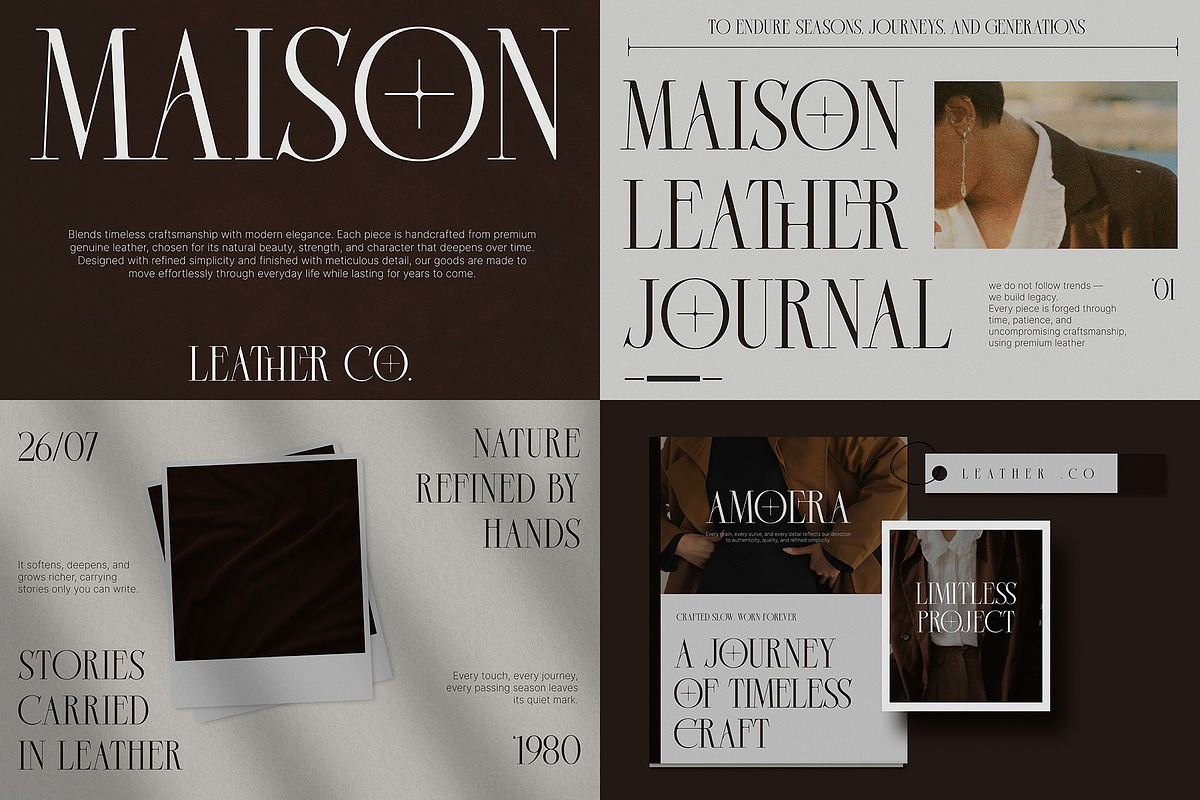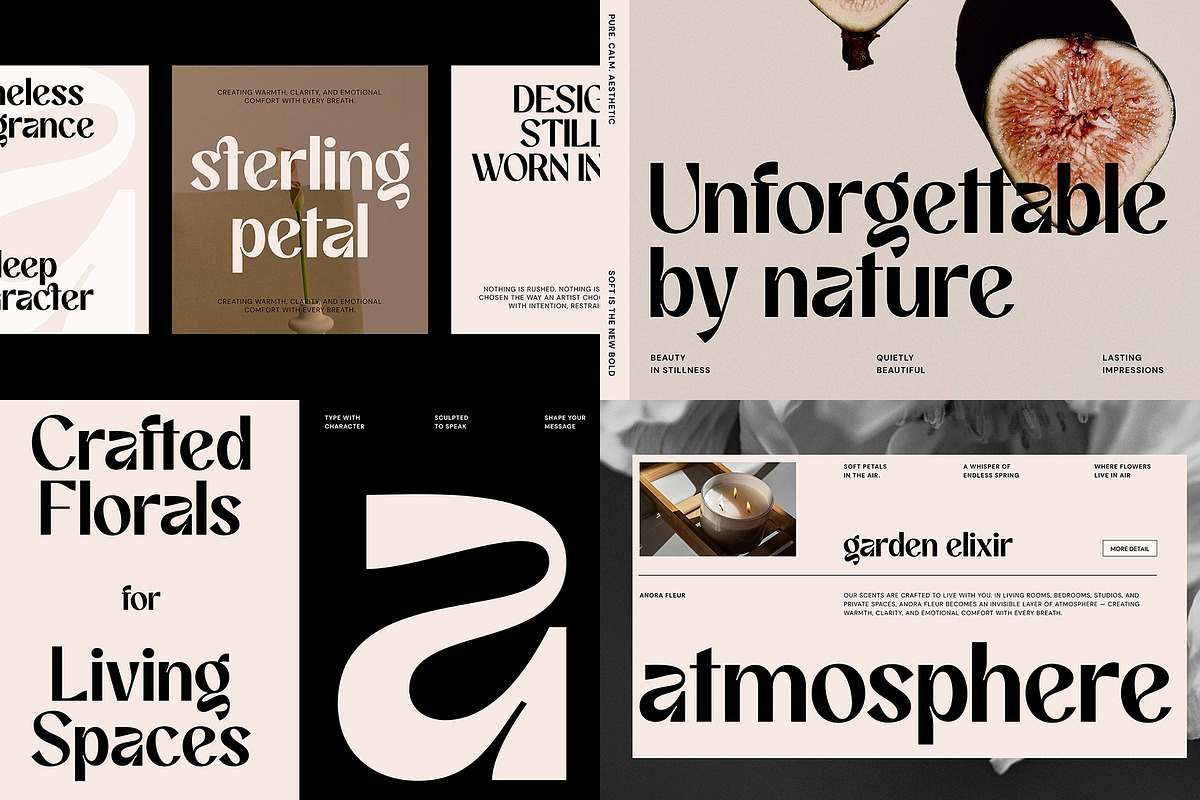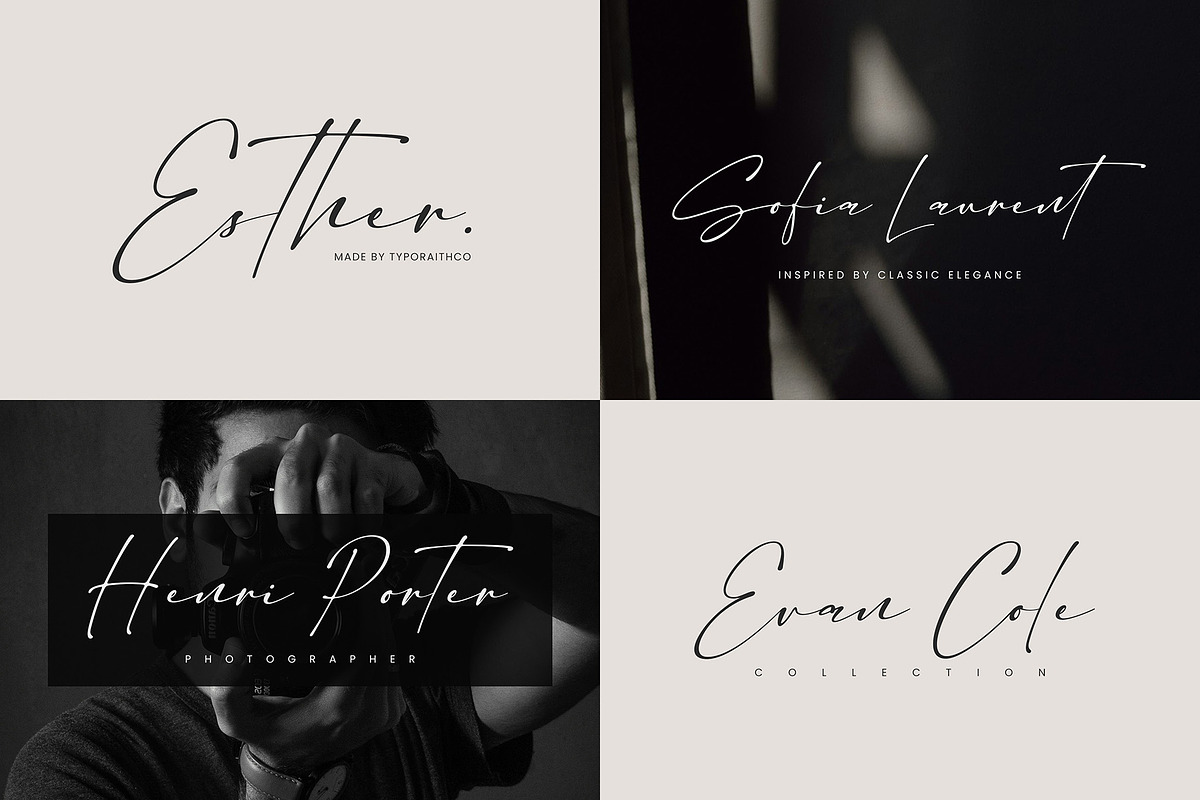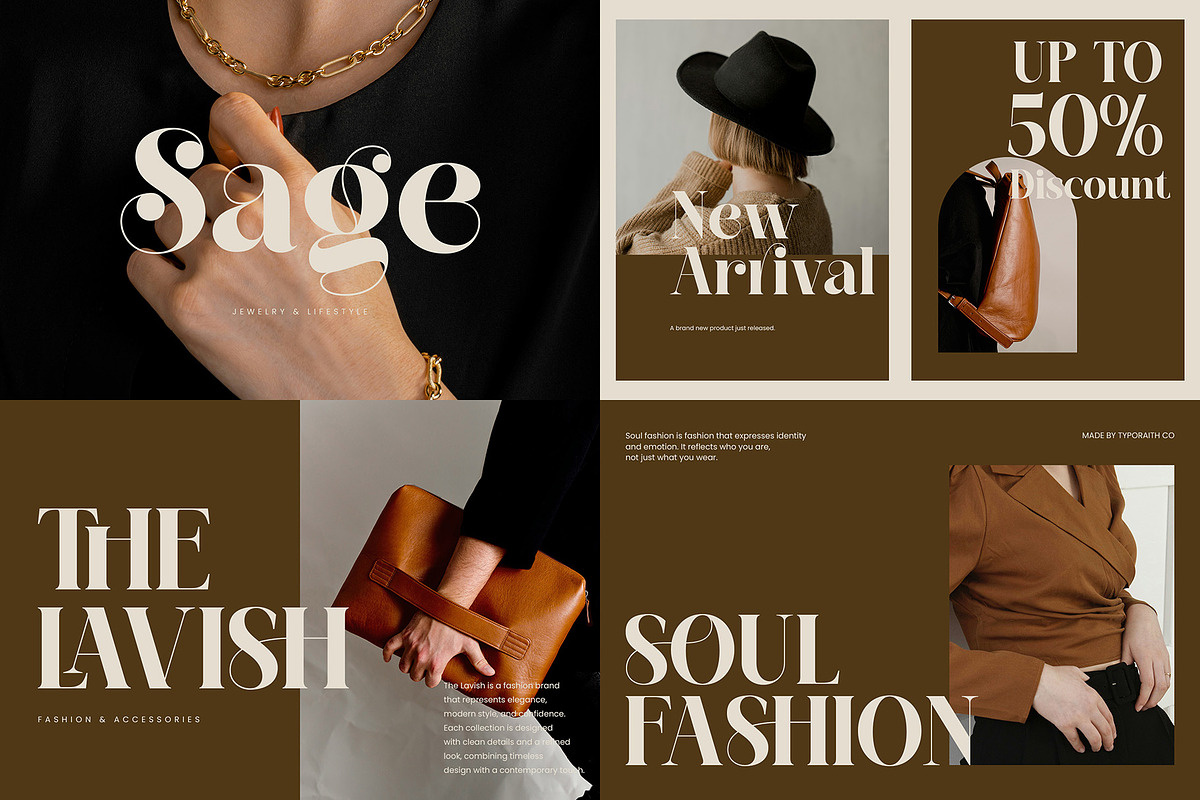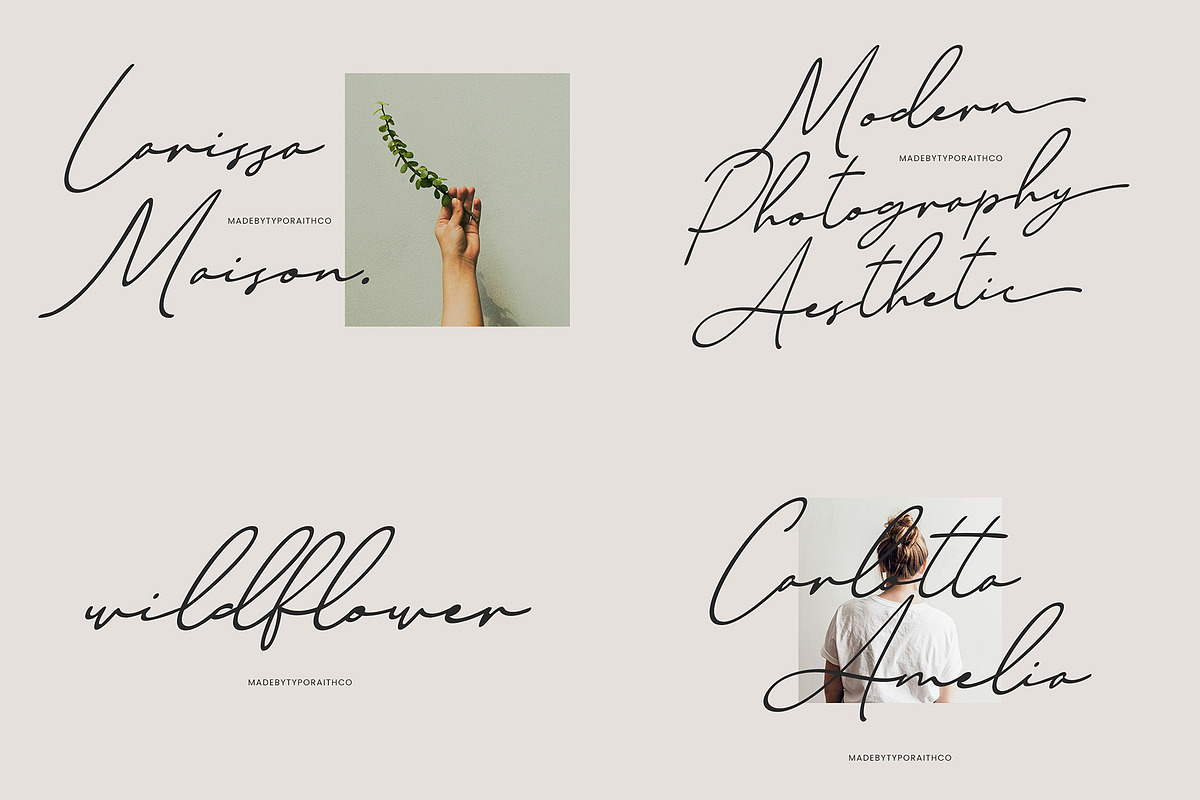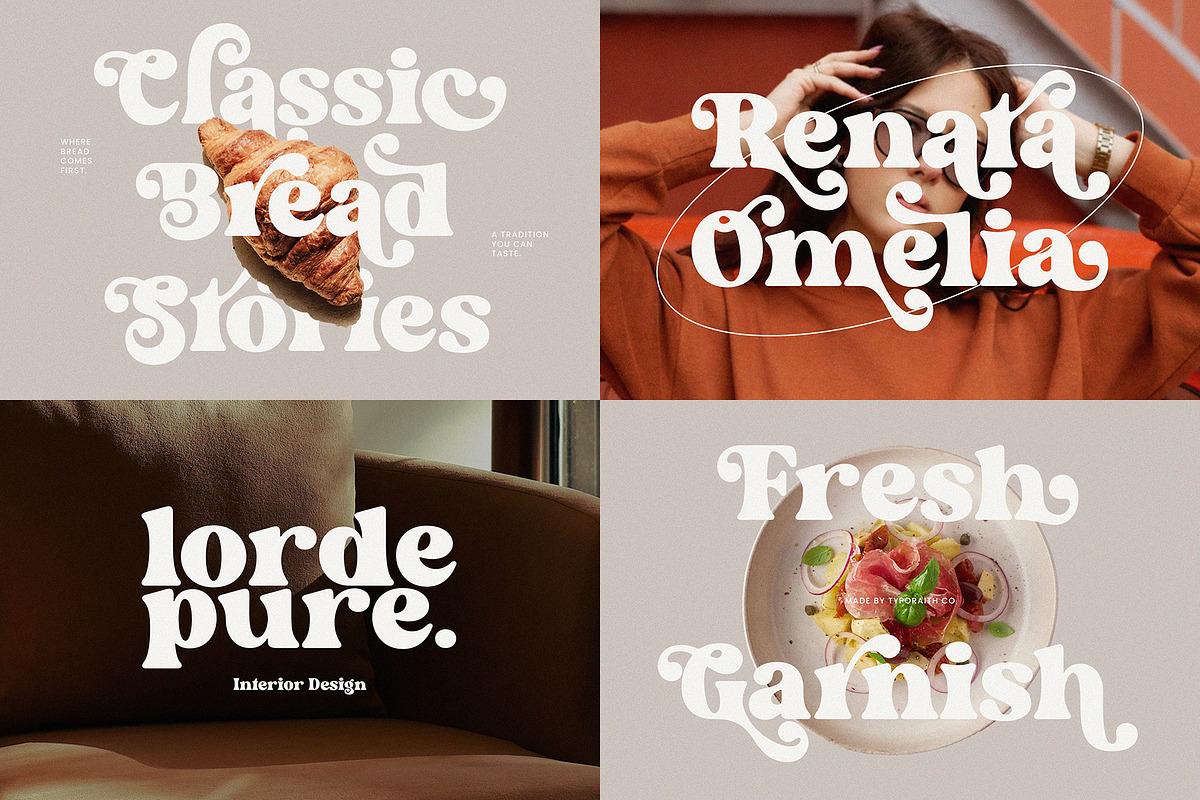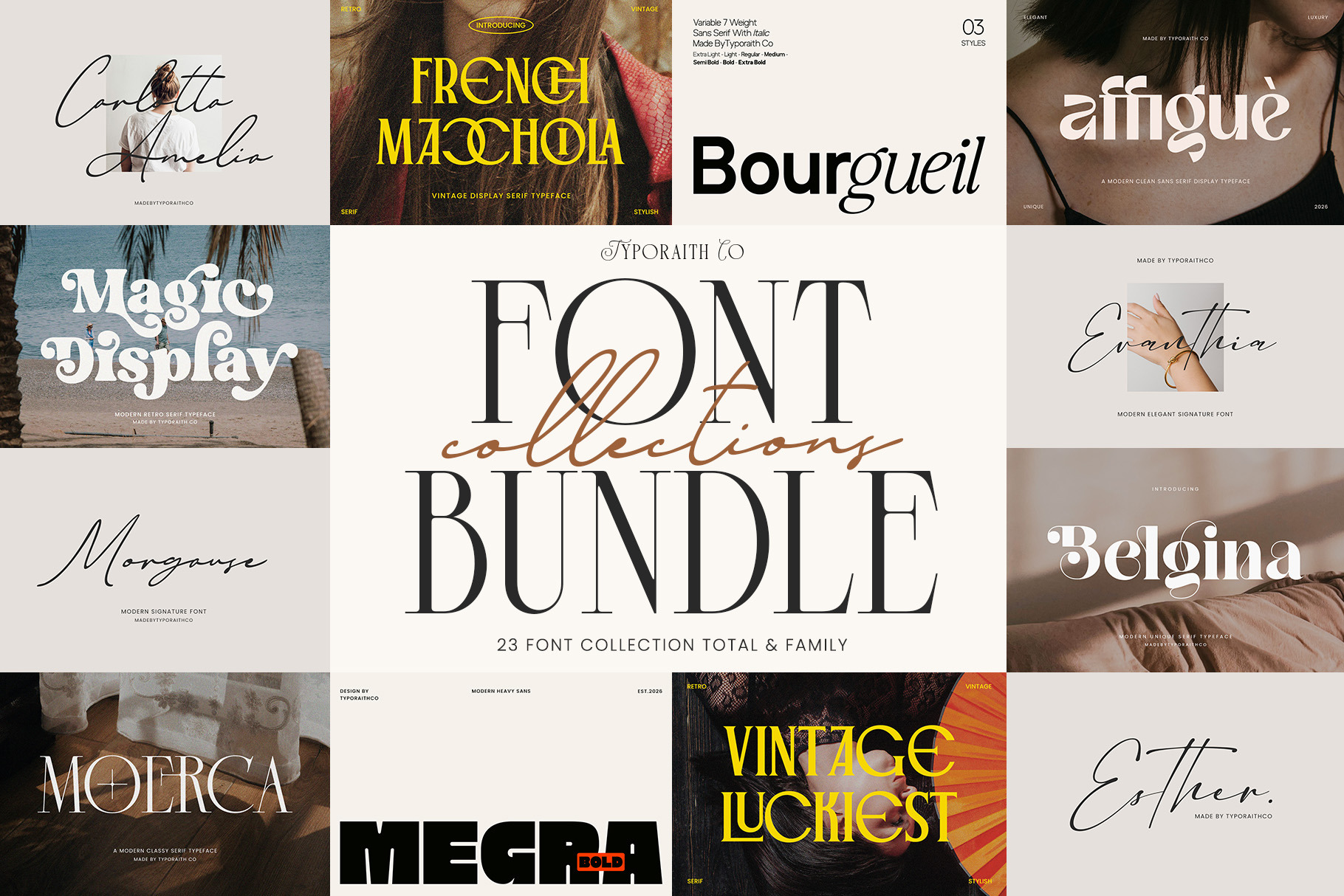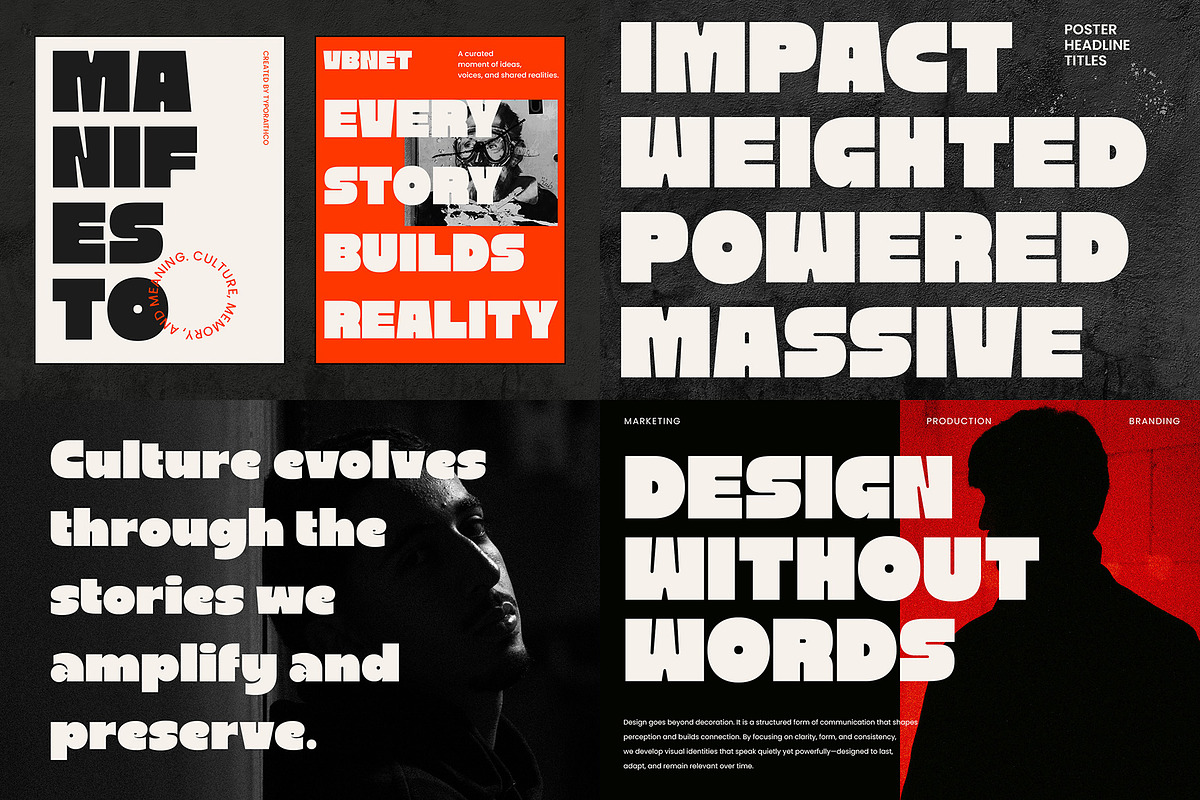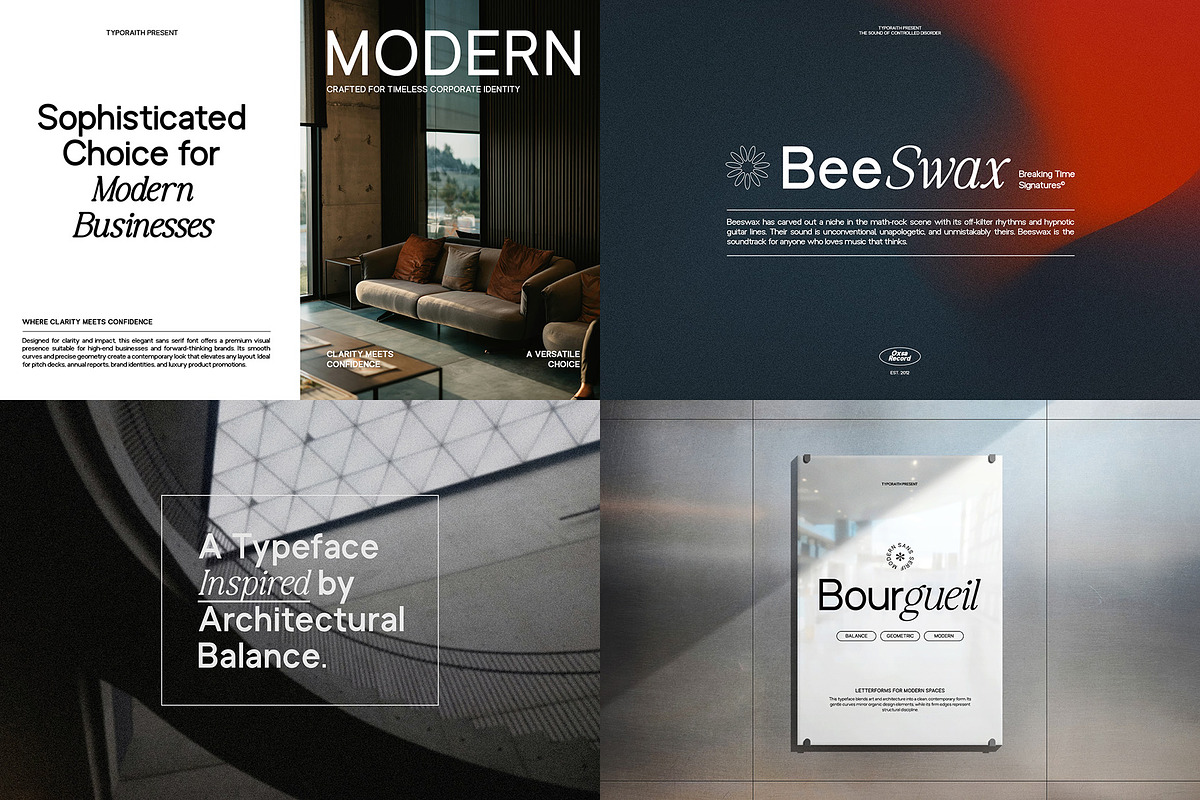
Font Bundle Collection
Elevate your design projects with this carefully curated 23 Font Collection Bundle by Typoraith Co. A versatile mix of modern serif, clean sans serif, and elegant signature script fonts — crafted to bring sophistication, character, and timeless style to your brand.
This bundle combines vintage charm, editorial elegance, and contemporary minimalism — perfect for designers, entrepreneurs, and creatives who want premium typography in one complete package.
Whether you're creating logos, wedding invitations, social media templates, packaging, or brand identities — this collection gives you flexibility and impact in every project.
- 23 Premium Fonts (Serif, Sans Serif, Script)
- Mix of Display & Family Styles
- Elegant Ligatures & Stylish Alternates
- Versatile styles (modern, vintage, elegant, bold)
This collection is designed to help you create bold statements, elegant identities, and timeless visuals — all in one powerful typography bundle.